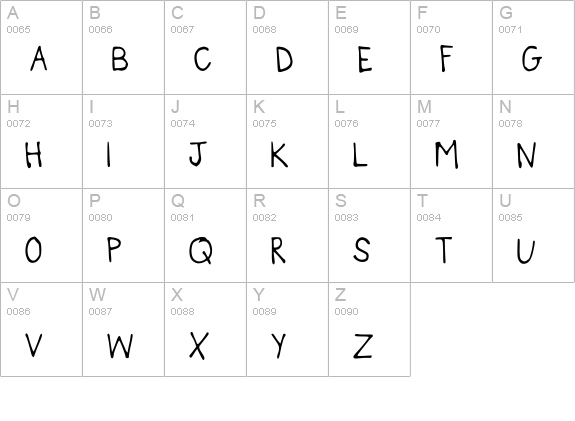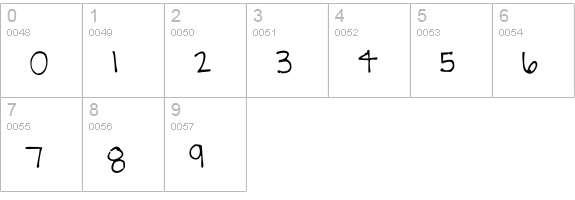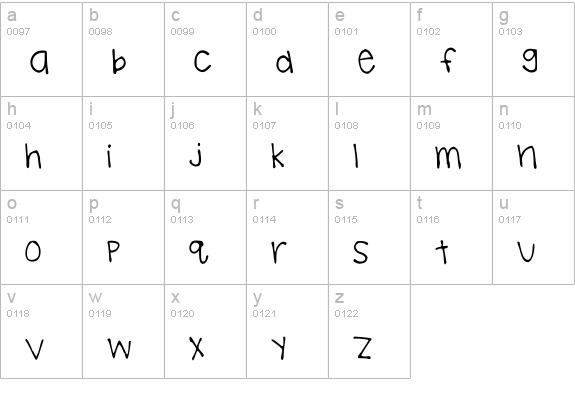
BrookeShappell8 Font Details
BrookeShappell8 font is a stunningly beautiful typeface that exudes elegance and sophistication. Its intricate curves and delicate strokes make it perfect for any design project that requires a touch of refinement. This font is sure to captivate your audience and leave a lasting impression. But what sets BrookeShappell8 font apart from the rest is that it is not only aesthetically pleasing, but it is also available for free. That's right, you can freely download this exquisite font at FontsMarket.com. Now, you don't have to break the bank to add a touch of class to your designs. Whether you're working on a personal project or a professional endeavor, BrookeShappell8 font is the ideal choice. With its versatile nature, BrookeShappell8 font can be used in a variety of design applications. From logos and branding to invitations and advertisements, this font will elevate your designs to new heights. Its clean and legible design ensures that your message is conveyed effortlessly while still making a bold statement. BrookeShappell8 font is meticulously crafted to perfection, ensuring that each letter and character is flawlessly executed. Its timeless appeal makes it suitable for both modern and vintage-inspired designs. This font truly embodies the notion that simplicity is the ultimate form of sophistication. So, why wait? Enhance your design projects with the elegance and grace of BrookeShappell8 font. Don't miss out on the opportunity to download this incredible font for free at FontsMarket.com. It's time to elevate your designs and make a lasting impression with BrookeShappell8 font.